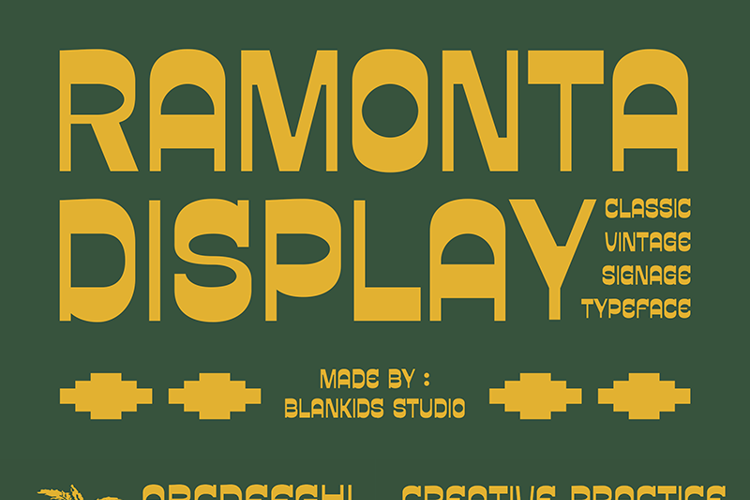
Ramonta Font
Ramonta – Free Vintage Display Typeface
Ramonta is a bold retro display font inspired by classic vintage signage, geometric lettering, and nostalgic graphic design. With its strong shapes, rounded details, and distinctive character, Ramonta is designed to make your headlines, logos, posters, and branding stand out.
Perfect for:
Vintage & retro designs
Signage and logos
Posters
T-shirts & apparel
Badges and labels
Barbershop branding
Automotive & motorcycle graphics
Headlines and display typography